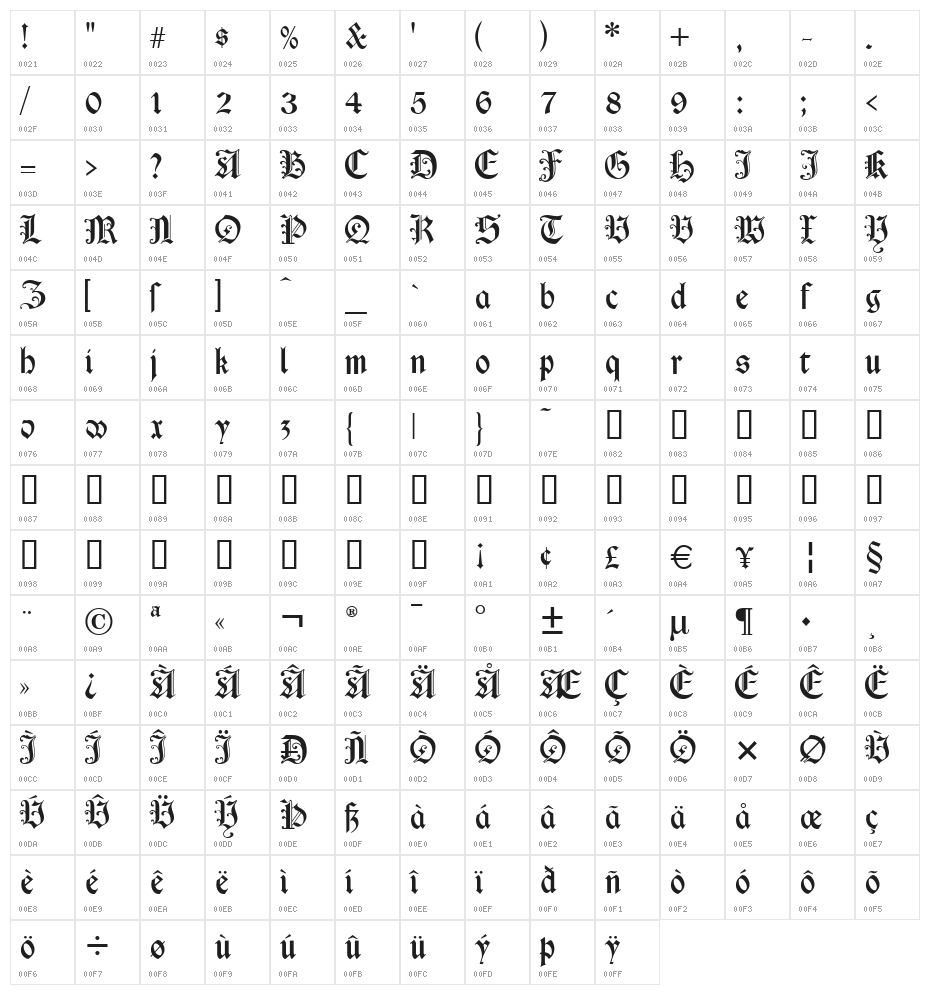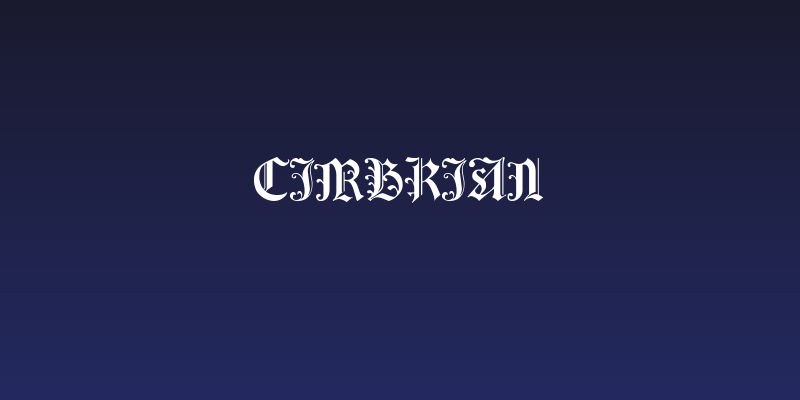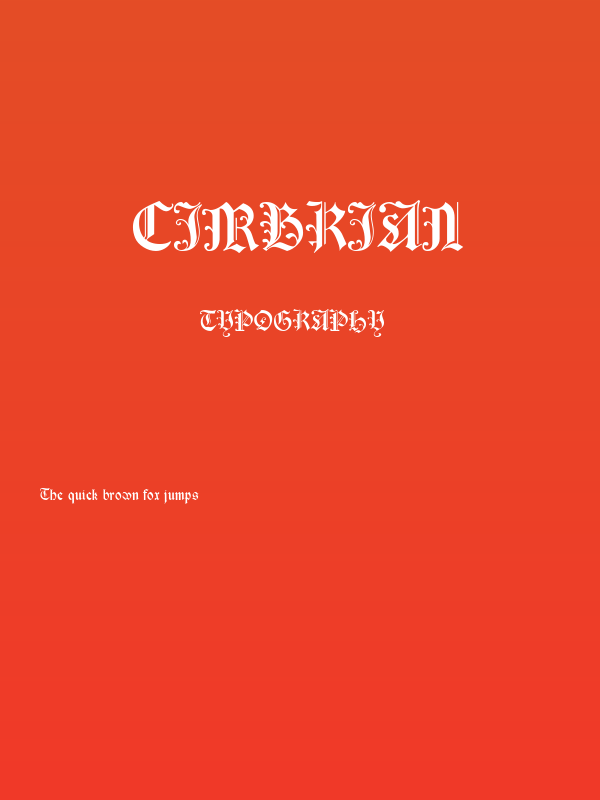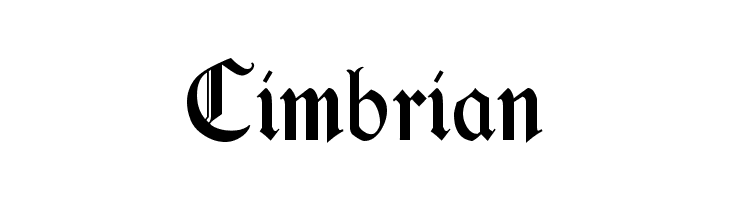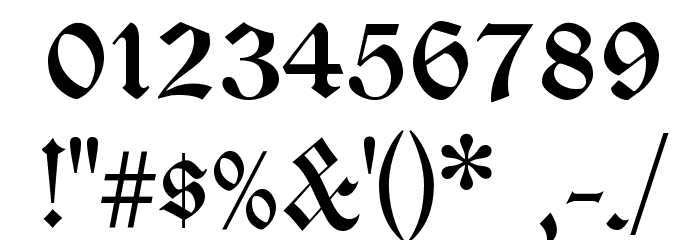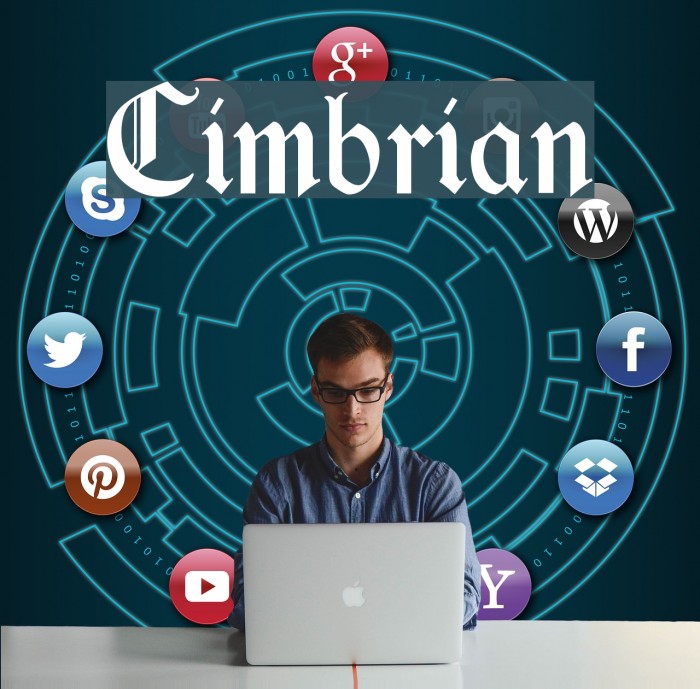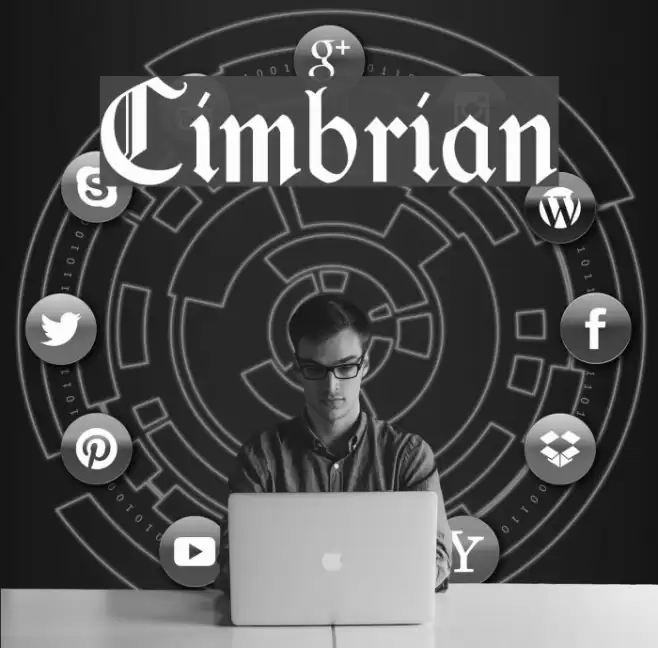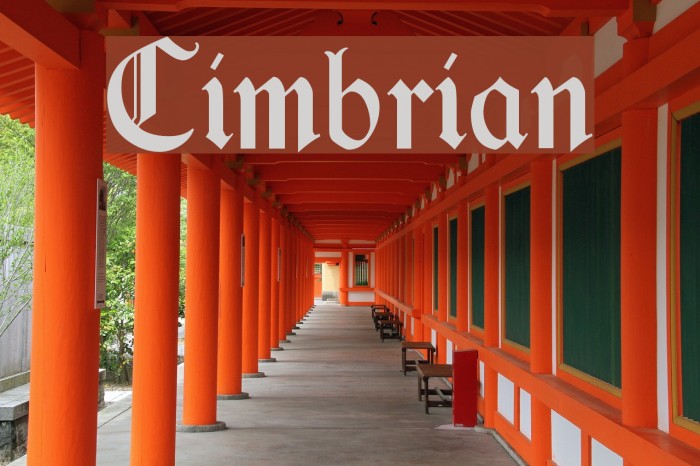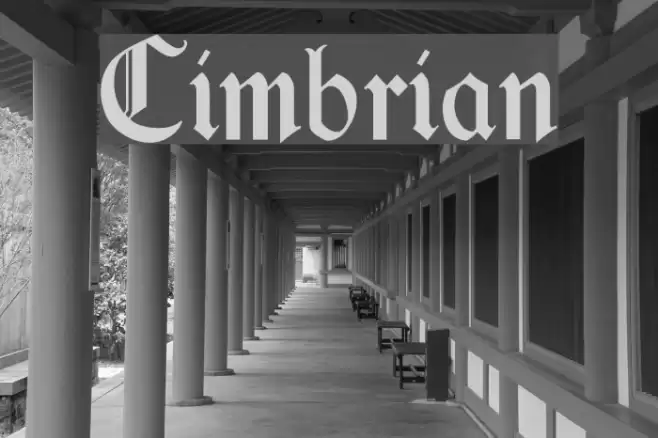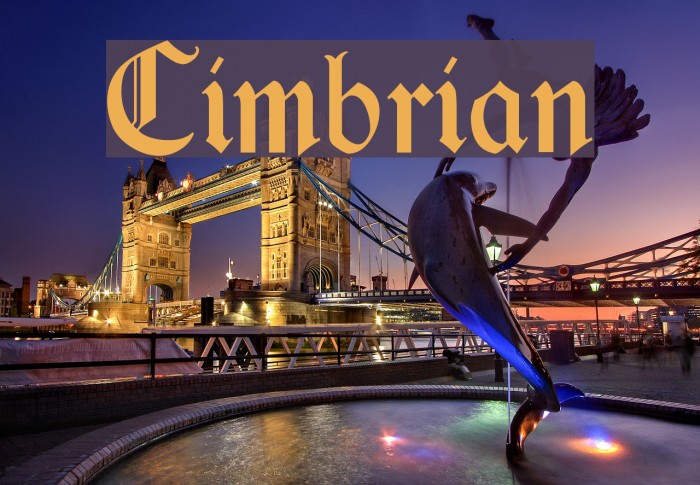
Cimbrian Font
Cimbrian Description
This font exudes a classic and ornate style reminiscent of traditional blackletter typefaces. The uppercase letters are highly decorative, featuring intricate flourishes and sharp angles that give them a bold and authoritative presence. The lowercase letters maintain a similar level of detail, with a slightly more subdued elegance that complements the uppercase characters. The numerals are consistent with the overall theme, offering a unique and historical feel. Special characters are designed with the same attention to detail, ensuring a cohesive look across all glyphs. This font is ideal for projects that require a touch of historical or gothic flair, making it perfect for invitations, posters, or branding that seeks to convey a sense of tradition and sophistication.
| Overall Style | Classic |
| Use Case | Headlines, Logos, Decorative text |
| Proposed Projects | Ideal for wedding invitations, historical documents, gothic-themed posters, and branding that requires a traditional touch. |